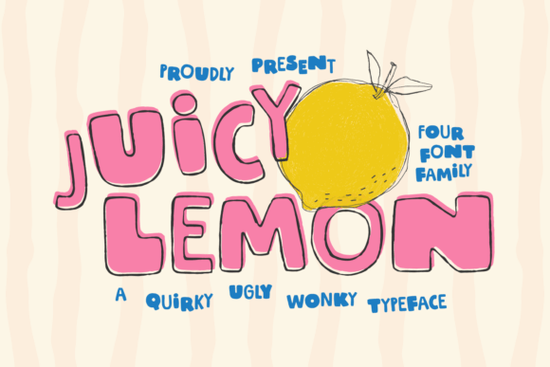
If you’ve been scrolling through display fonts looking for something with personality not too polished, not too stiff you might want to take a closer look at Juicy Lemon Font. It’s got that hand-drawn, slightly off-kilter charm that makes designs feel alive. Think of it as the typographic equivalent of a doodle you’d find in the margin of a notebook except this one’s ready to use on posters, packaging, or even your next Etsy listing.
What stands out about Juicy Lemon isn’t just its boldness it’s the intentional imperfections. The curves wobble just enough. The letters don’t line up perfectly. And that’s exactly why it works. If you’re tired of fonts that feel sterile or corporate, this one brings back the human touch without needing to pick up a pen.
Who actually uses a font like this?
It’s surprisingly versatile. Small business owners designing their own labels? Check. Print-on-demand creators making t-shirts or mugs with attitude? Definitely. Crafters putting together party invites or stickers? Absolutely. Even social media managers trying to stand out in a sea of clean sans-serifs have found a friend in this typeface.
Because it’s so expressive, it pairs well with minimal layouts. You don’t need fancy backgrounds or complex graphics just let the font do the talking. A single word in Juicy Lemon can carry an entire design.
How does it compare to other playful display fonts?
If you’ve browsed Creative Fabrica’s display fonts before, you might already know Magic Unicorn another favorite for whimsical projects. While Magic Unicorn leans into fantasy and sparkle, Juicy Lemon is more grounded in messy, real-life energy. Think sidewalk chalk, not fairy dust.
For something with a bit more structure but still plenty of character, Fishtail Monogram offers a retro-meets-modern vibe that’s great for branding. And if you’re going for vintage grit, Retro Rush nails that 70s diner aesthetic. But none of them quite capture the “I just scribbled this while laughing” feeling that Juicy Lemon delivers.
What kinds of projects work best with Juicy Lemon?
- Packaging Juice bottles, snack bags, candy wrappers. Anything that should feel fun and fresh.
- Social media graphics Quotes, announcements, or promos that need to pop in a feed.
- Event posters Birthday parties, summer festivals, food truck events. The kind of things that should feel lively, not formal.
- Merchandise T-shirts, tote bags, enamel pins. Especially if your brand voice is casual, cheeky, or nostalgic.
- Branding elements Logos, headers, or accent text for businesses that want to feel approachable and full of personality.
One thing to note: because it’s so stylized, it’s not ideal for long paragraphs or small sizes. Stick to headlines, logos, or short phrases where each letter can shine.
Is it easy to customize or layer with other fonts?
Yes and that’s part of its strength. Pair it with a simple sans-serif (like Montserrat or Lato) for balance. Use it as a standalone hero element when you want maximum impact. Some users even layer it with subtle textures or drop shadows to enhance that handcrafted look.
You’ll also find alternate characters and ligatures included, which means you can tweak words to feel even more unique. No two uses have to look exactly alike perfect if you’re creating multiple products or social posts and want to keep things fresh.
Any tips for getting the most out of it?
Here’s what experienced users recommend:
- Don’t overuse it. One headline per design is usually enough. Let it breathe.
- Play with color. Bright yellows, citrus greens, or even black on white all work well.
- Scale it big. This font loses its charm if it’s too small. Give it room to be bold.
- Pair thoughtfully. Avoid other overly decorative fonts. Simplicity elsewhere lets Juicy Lemon shine.
If you’re the kind of creator who likes fonts with soul the ones that feel made by hand, not generated by algorithm this one’s worth adding to your toolkit. It doesn’t try to be perfect. And that’s exactly why it’s so good.